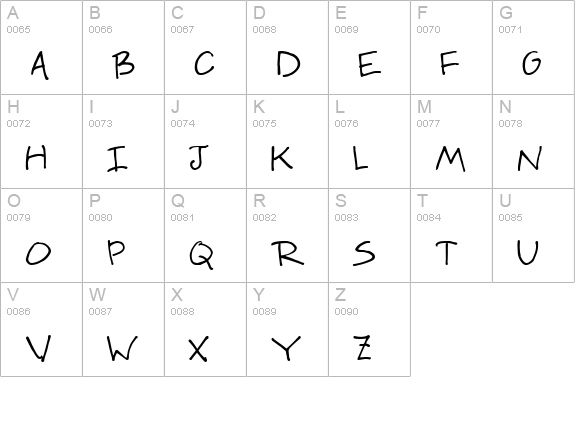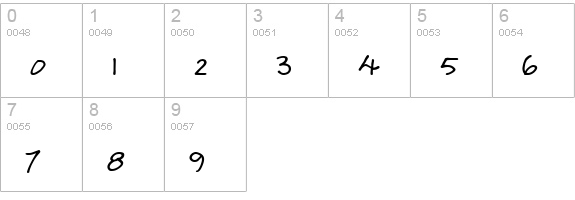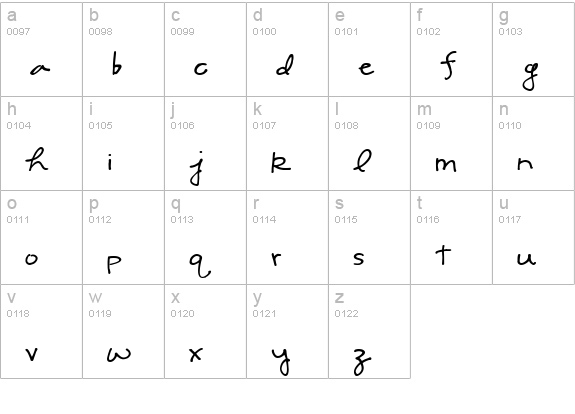
CK Sloppy Font Details
CK Sloppy font is a playful and whimsical typeface that exudes a sense of fun and creativity. With its irregular strokes and uneven edges, this font adds a hand-drawn charm to any project. Whether you're designing a poster, invitation, or branding materials, CK Sloppy font will bring a unique and quirky touch to your designs. Best of all, CK Sloppy font is completely free to download at FontsMarket.com. You can easily access this delightful font and add a touch of personality to your projects without any cost. Embrace the playful spirit of CK Sloppy font and let your creativity shine!